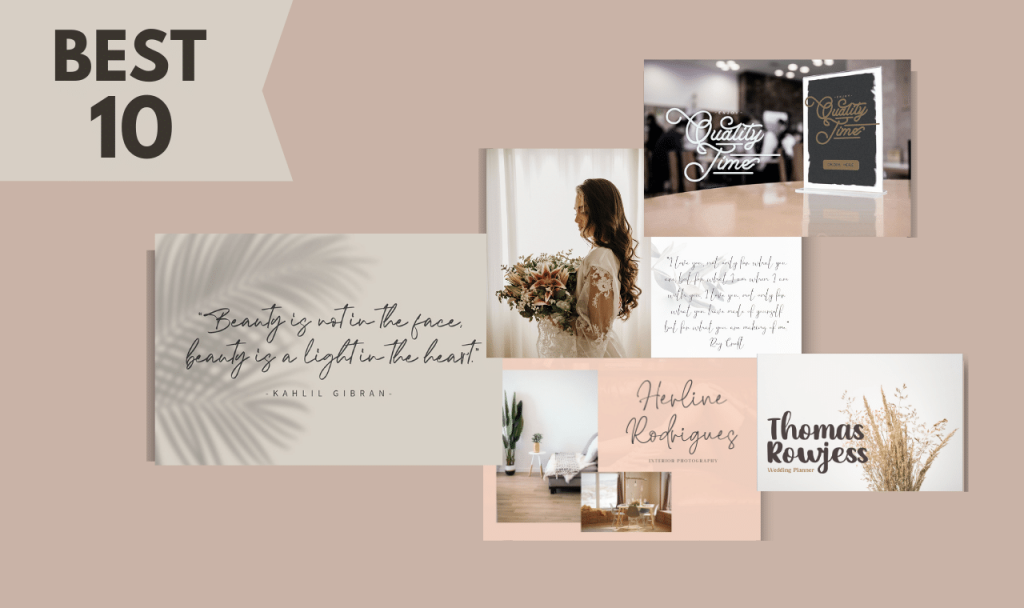
Who doesn’t know of the best font on the wedding invitation? Fonts of this type usually used on invitations, headings for announcements or advertising. They’re rarely used on the web as a body text and work best when used for their intended purposes. If you’re thinking what ideas of wedding font invitations, or custom the font on your wedding invitation cards, the trick is all about finding the right font. There’re many font available on the Internet and it’s just teribble to check all of them and choose one, especially under a lot of express during the wedding planning. That’s why i listed top 10 fonts for your custom wedding invitations. Check all at the below and download them to start design your wedding invites.
1. Almahira Script Font
This’s it! Almahira is the first recommended font. It’s certain from the start when you see a given style that is romantic to complement your customer’s wedding project. Run, you’ll love this cool font on your font wedding invitation colection.
2. Lovestrong – Script Font
Other than beautiful colors, the writing on an invitation is worth thinking about. The harmony of the two supports the creation of good and stunning work. You also use this font with shadow flower for best combination.
3. Brendria – Signature Font
A modern signature font designed by Yahdi Romelo. Brendria is the best script font on your wedding design invitation. With a font that gives deep meaning, it also seems suitable for quotes and pictures displays.
4. Shady Cave – Script Font
The curves of the script font give a bold but beautiful impression. Even though it seems bold, it’s perfected with a loving touch. It’s cute and swirly and works great for holiday designs or birthday invitations.
5. Congealed – Signature Font
Thin script fonts are very suitable when placed on designs related to the bond of love. These amazing wedding invitation is a clean and professional modern script font. You will love using it for ads, logos, branding and social media. Packed beautifully in the event valentines too.
6. Danielle Signature – Handwritten Font
Font touch by human fingers look like artsy font. So unique and memorable design. This font can be used in simple hairline form or with interesting ligatures. A great font for logos, headers and quote graphics.
7. The Morgan – Signature Script Font
You find great font script for your wedding souvenir? The morgan is the right font for you. The morgan is clean and look like aesthetic script font. Feel free for your casual logo and branding.
8. Veronica – Signature Script Font
Veronica will look better when written kind words such as prayers and wedding wishes. It’s also a great idea for invited guests who want to give a gift of pictures along with writing.
9. Thequilla – Monoline Script Font
When it comes to unique monoline script fonts. Try Thequilla font if you’re after a font with a retro, vintage vibes. Thequilla is a great choise. It also looks great on mugs and cards. There are also symbol and number what you need.
10. Silly Goose – Handwritten Font
The Silly Goose is a handwitten script font. These font has a lot of personality and would be a great choice for a branding project or wedding invitations. Go ahead and grab it for your next project.